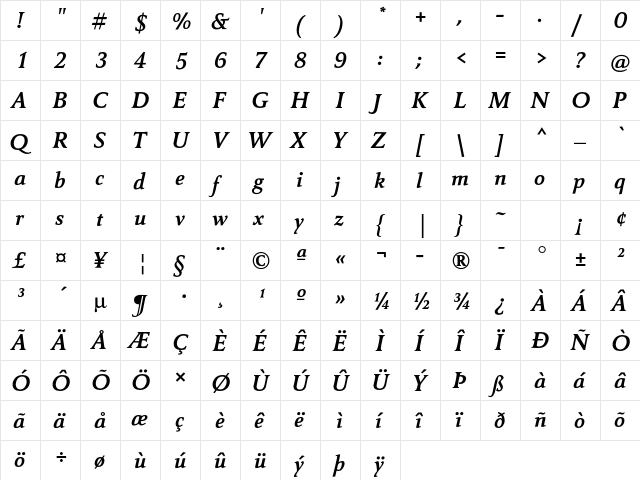
Carre Noir Std Bold Italic Font Preview
Carre Noir Std Bold Italic
Design Context for Carre Noir Std Typeface
Carre Noir Std takes a measured approach to typography — its balanced proportions and neutral character make it a reliable workhorse for both digital and print work. The dynamic lean of this cut emphasises speed and emphasis in any layout. Its bold stroke weight gives it real presence on the page.